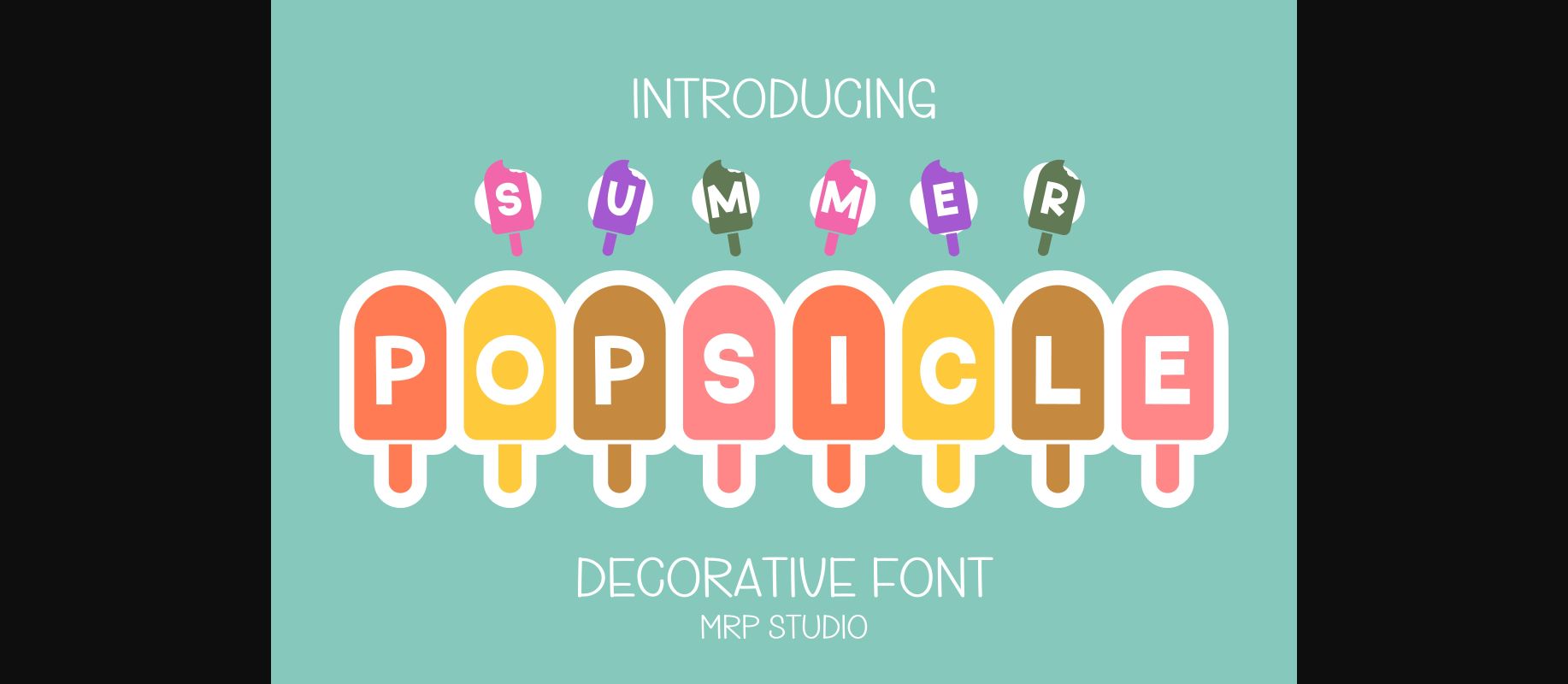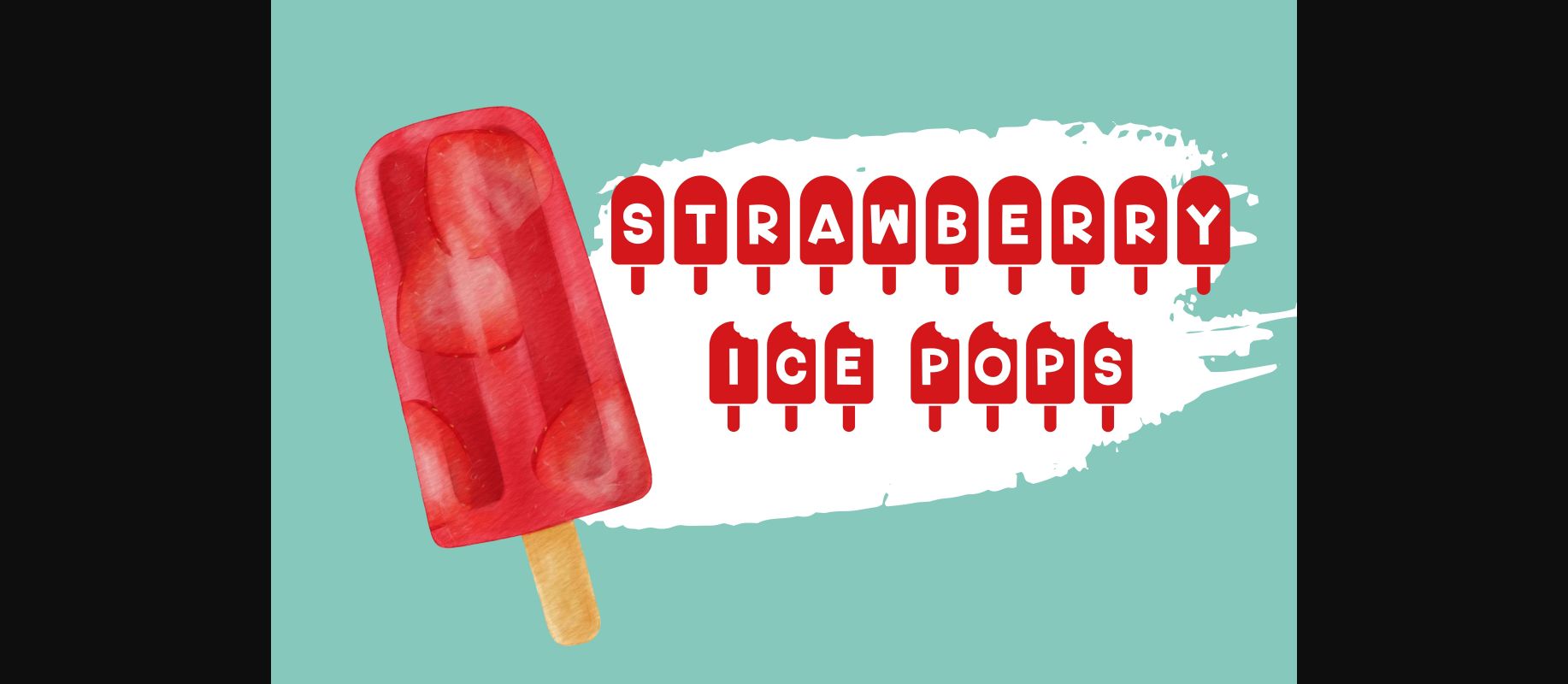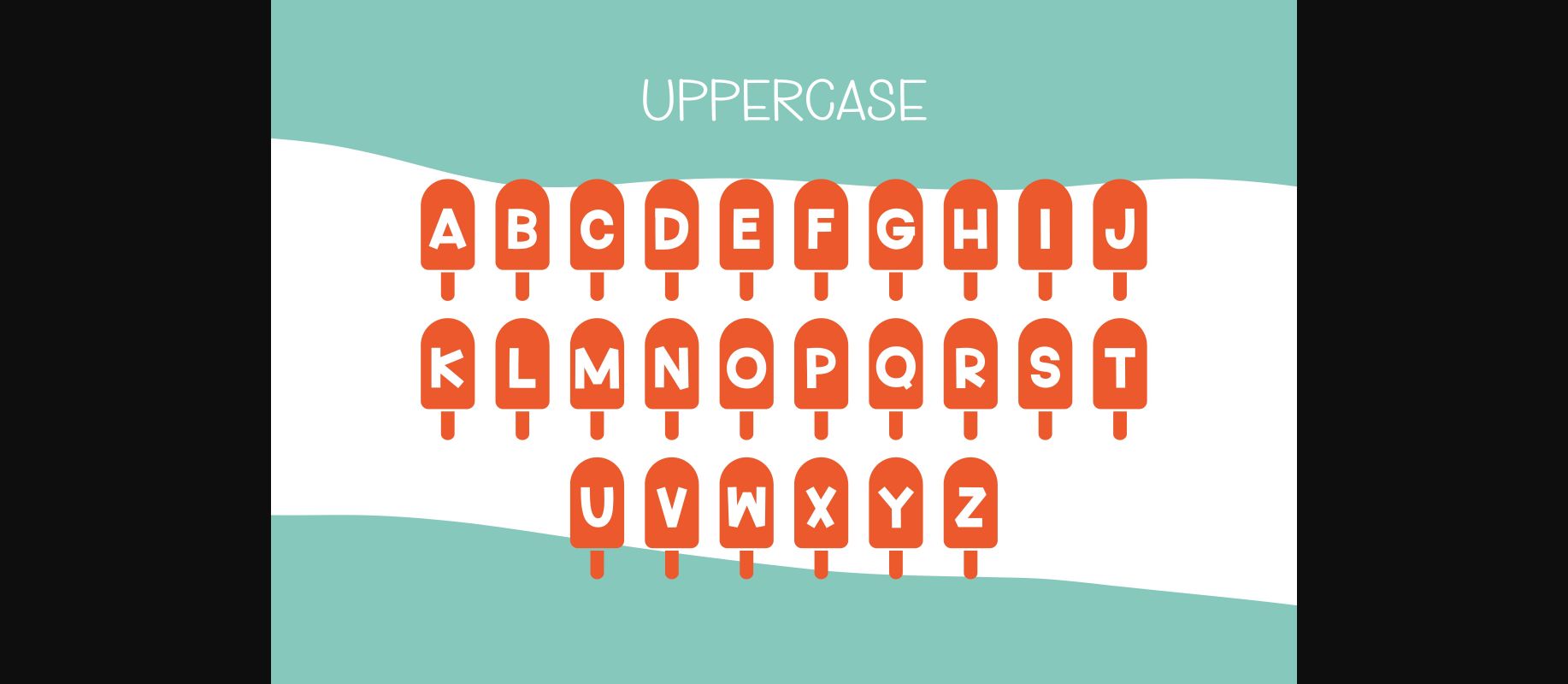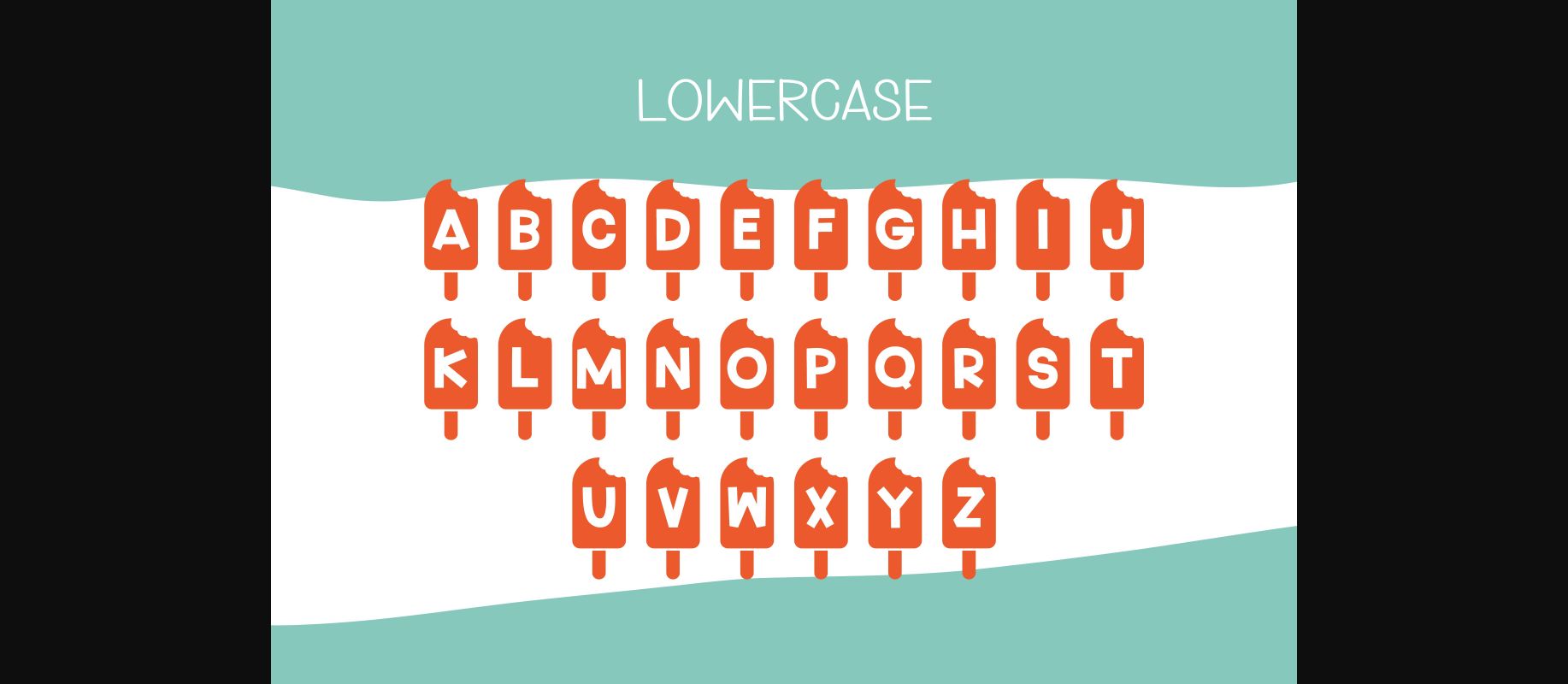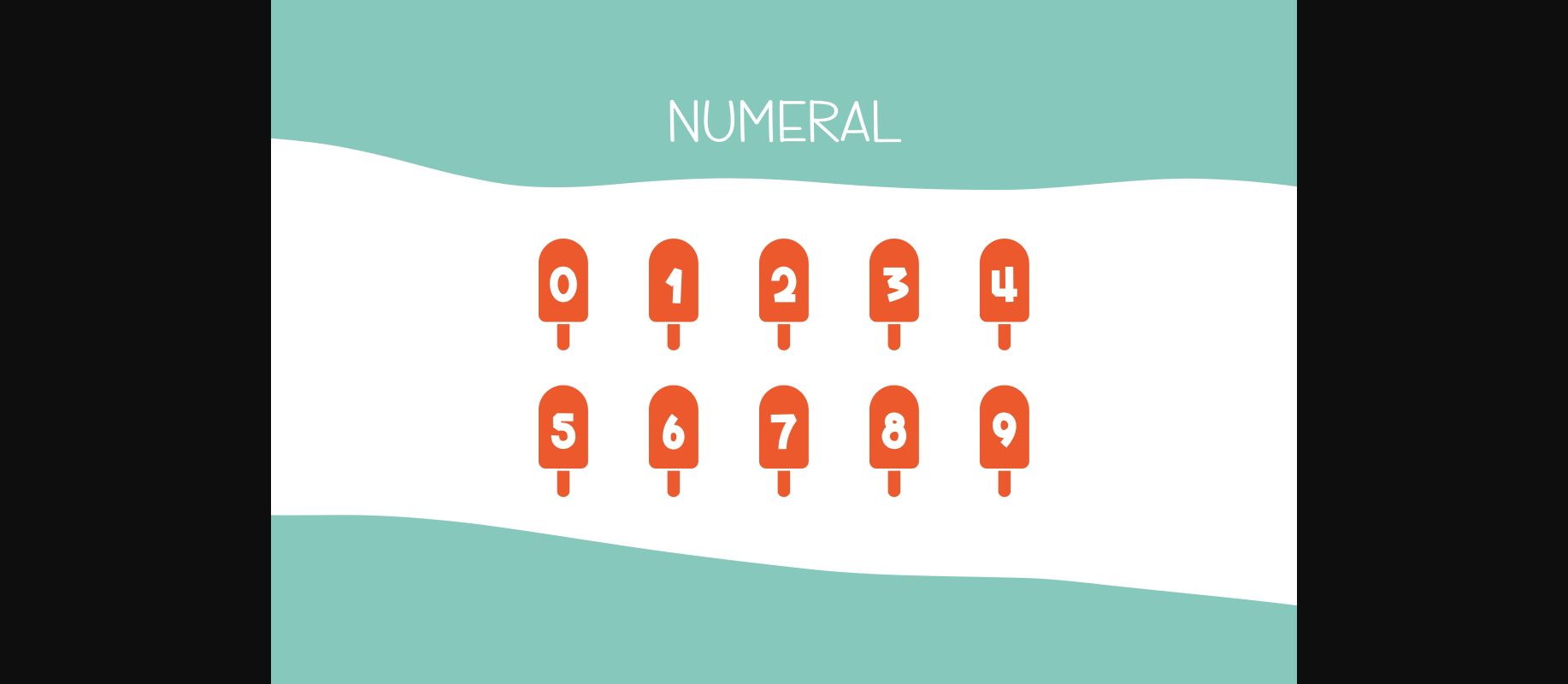
About Popsicle Font
Popsicle is designed in a cute and adorable decorative font style. It would be awesome for your lovely project and also your child-related project such as back to school, birthday party decoration, and much more to any topic which needs bright and fun touch. Let’s try it and add it to your creative ideas and notice how it makes them stand out!